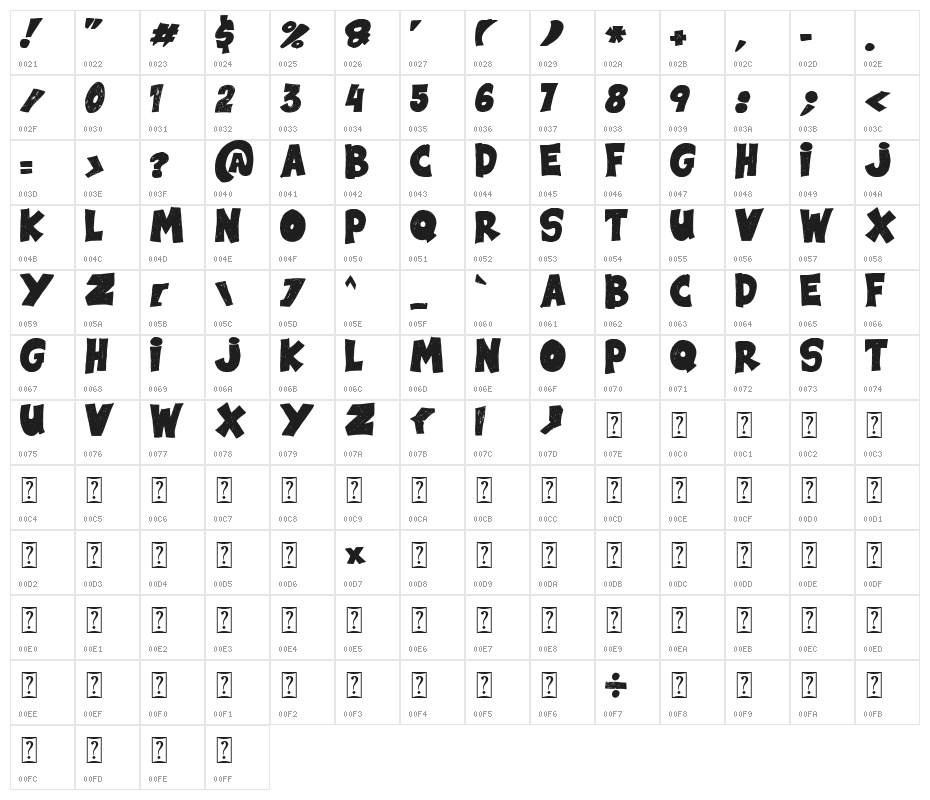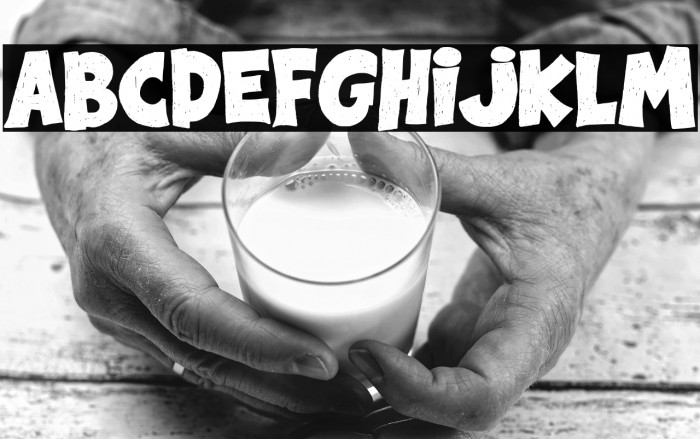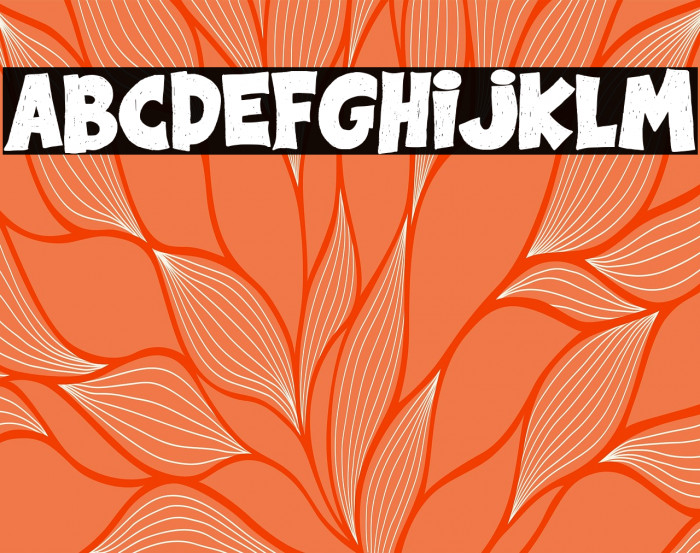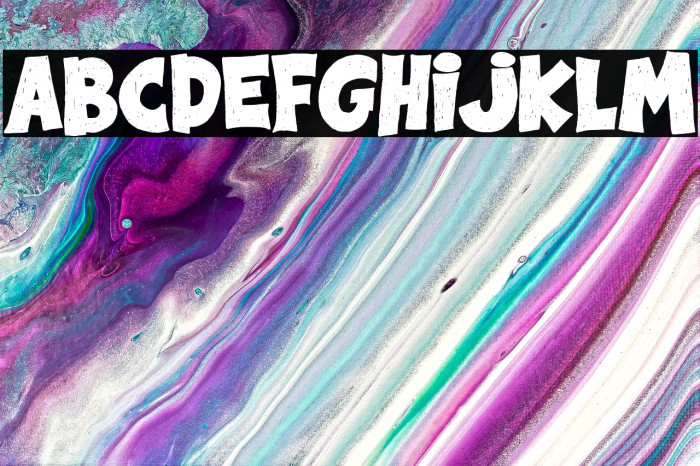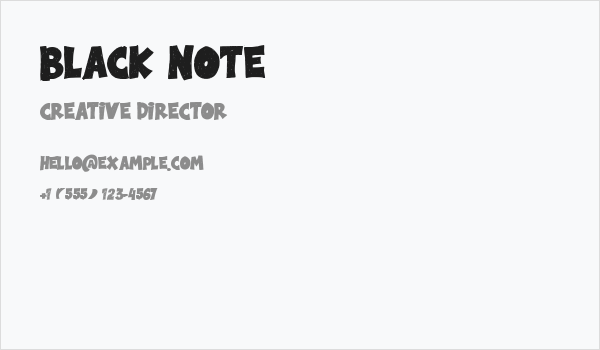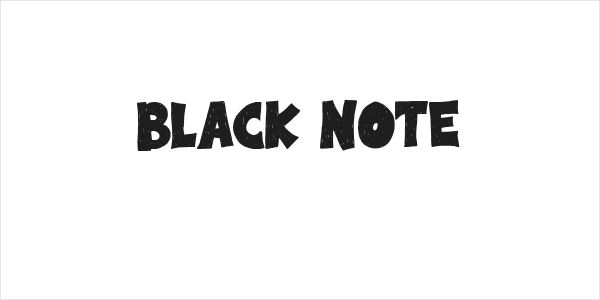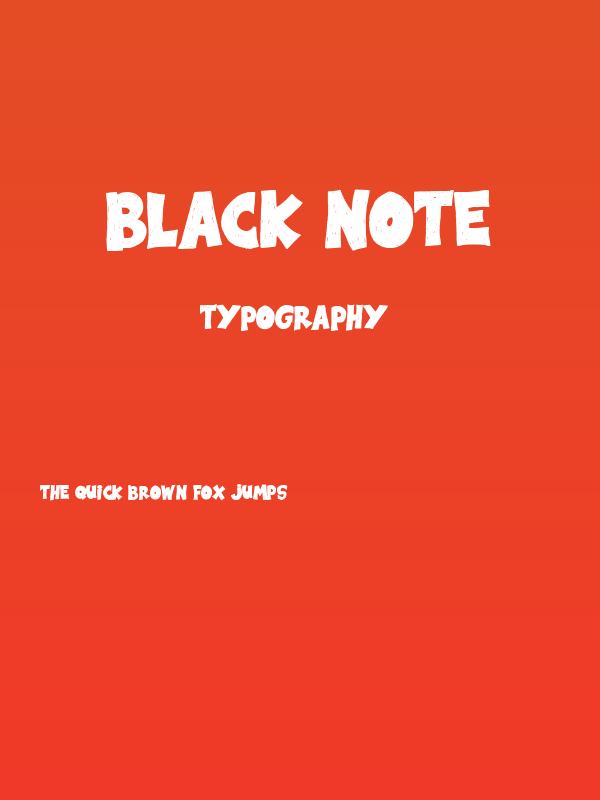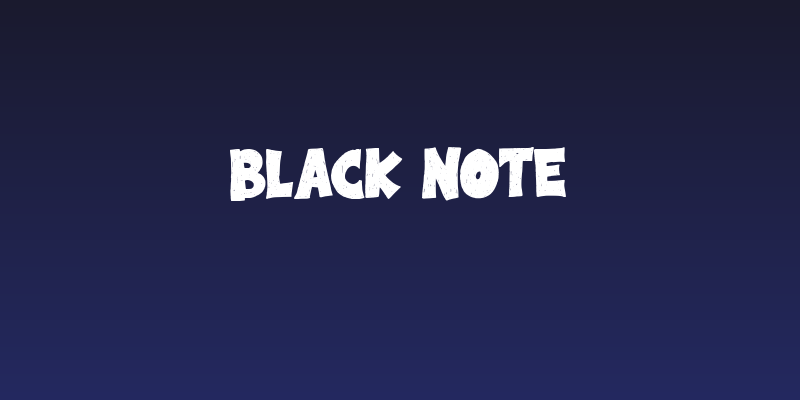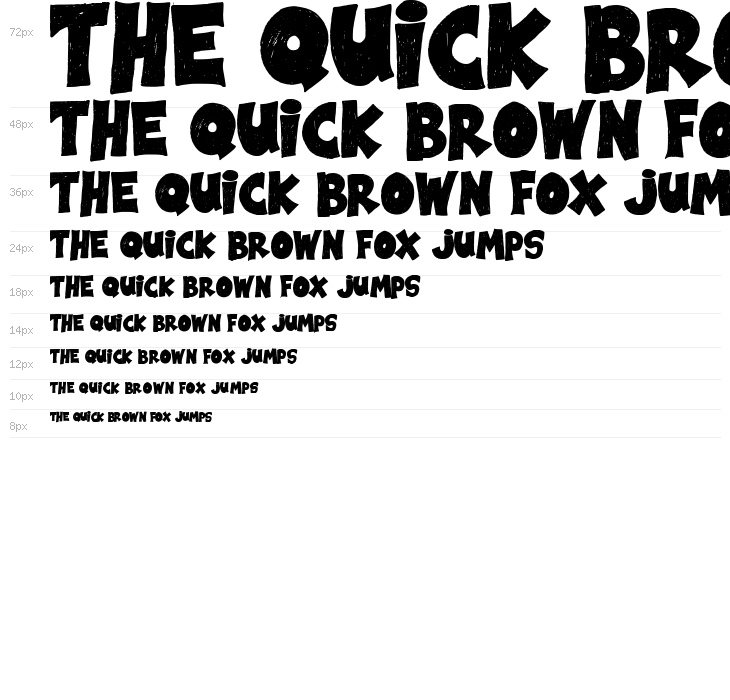
Black Note Font
Black Note Description
This bold and expressive font features a playful and dynamic style, characterized by its thick, uneven strokes and slightly irregular shapes. The letters exhibit a hand-drawn quality, with a textured appearance that adds depth and personality. The uppercase and lowercase characters maintain a consistent style, while the numbers and special characters complement the overall design. This font's unique and energetic look makes it ideal for projects that require a strong visual impact.
| Use Case | Headlines, Posters, Branding |
| Proposed Projects | Perfect for posters, children's books, comic strips, and branding that requires a fun and engaging look. |